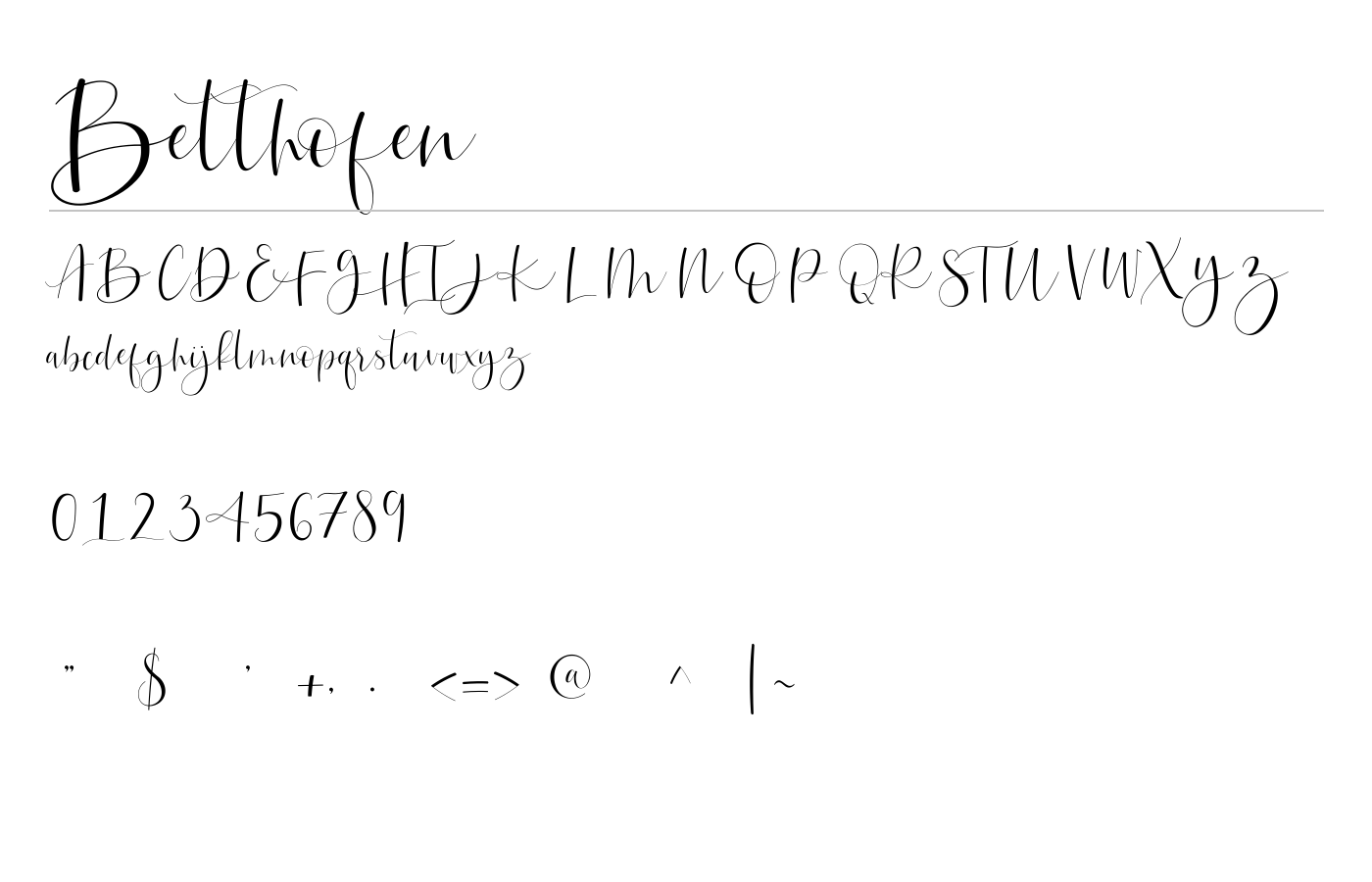
Betthofen is an elegant script font characterized by its delicate, flowing strokes and a refined, handwritten feel. It features varied stroke weights with subtle contrasts, graceful swashes, and both uppercase and lowercase letters that convey sophistication and charm. Ideal for wedding invitations, luxury branding, and feminine editorial designs, Betthofen adds a touch of stylish, modern elegance wherever it’s used.
Betthofen Font
About Betthofen Font
| Font family | Betthofen Font |
| Designer | Ferry Ardana Putra + Bluetype |